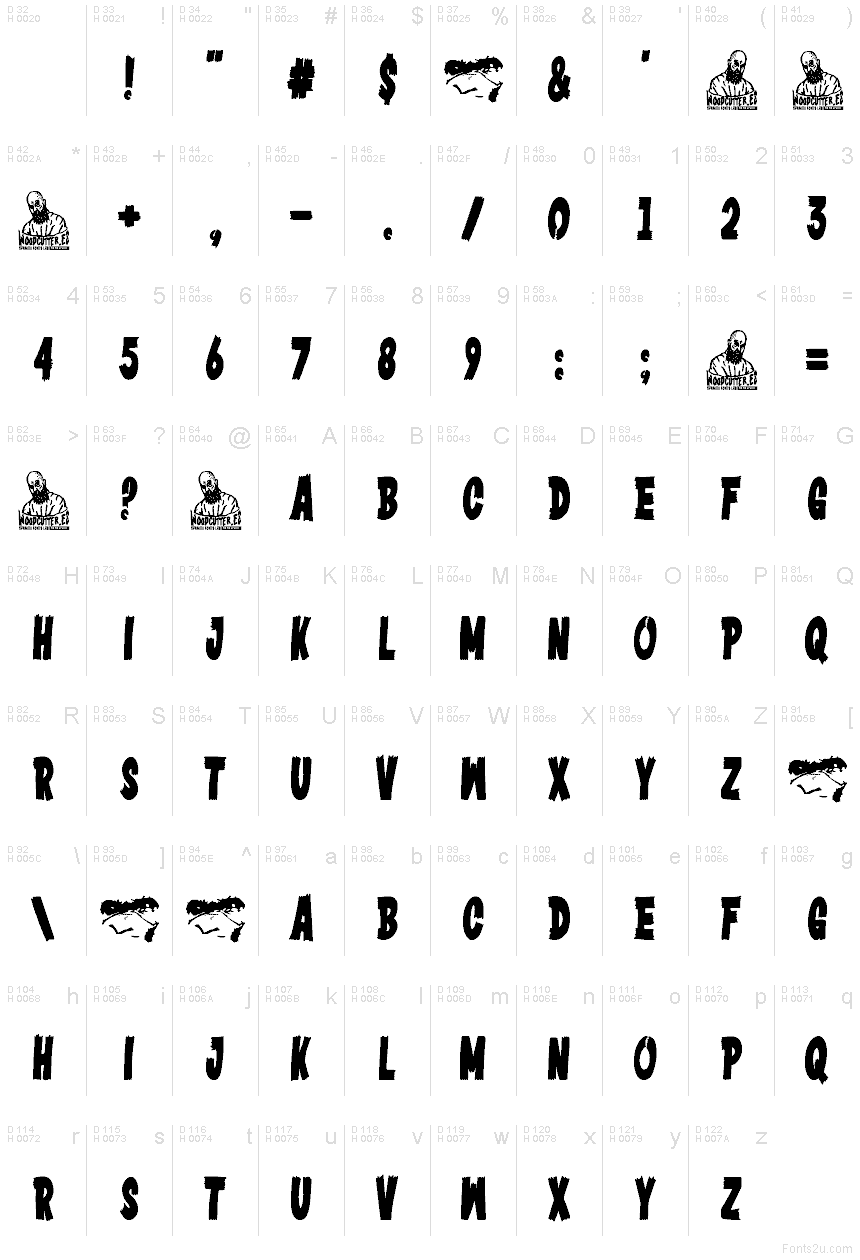
White Gorilla
White Gorilla font by Woodcutter is a bold display typeface that packs personality and presence. The cartoon style features a rugged, textured appearance, with edging and organic details adding movement. It features a thick condensed structure that stands out in both small and large design projects.
Whether used for logos, posters, social media posts, or creative websites; this free typeface won’t disappoint. Possible use cases also include book covers, magazines headers or subheadings, film titles, and packaging designs of all kinds.